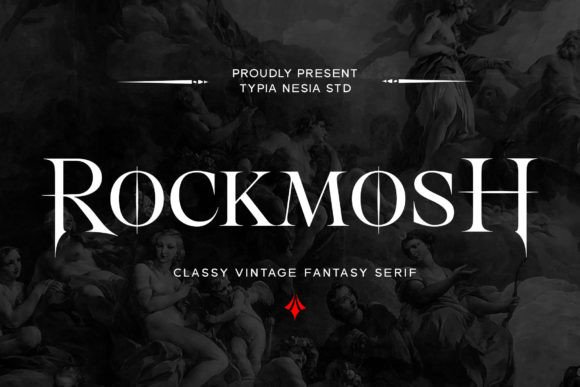
Welcome to the world of Rockmosh Font - the ultimate solution for all your fantasy sci-fi typography needs! Rockmosh is a magical and horror-inspired serif font designed by Typia Nesia that will take your projects to the next level. With its unique and eye-catching design, Rockmosh is the perfect addition to any creative project that requires a touch of mystique and allure.
Whether you are looking for a font to use in your logo or branding, modern advertising design, or for a special event like Halloween or gothic-themed designs, Rockmosh has got you covered. Its classic, yet contemporary design makes it an ideal choice for apparel, hardcore music, fantasy animation or movie, logos, adventure poster quotes, game industry, music/band, book/cover titles, editorial design, website/blog, card, custom mug, pillow, t-shirts, and any gothic hand-lettered needs.
What sets Rockmosh apart from other fonts in its category is its versatility and the wide range of projects it can be used for. Whether you are a graphic designer, artist, or blogger, you can use Rockmosh to create unique and captivating designs that will capture your audience's attention and make your brand stand out.
With its elegant curves and bold lines, Rockmosh font is the perfect way to add a touch of class and sophistication to your projects. So, if you are looking for the best font for fantasy sci-fi, look no further than Rockmosh!
In summary, Rockmosh Font is the ideal choice for anyone looking for a classic and timeless font that can add a touch of magic and horror to their projects. So, download Rockmosh today and take your typography to the next level!